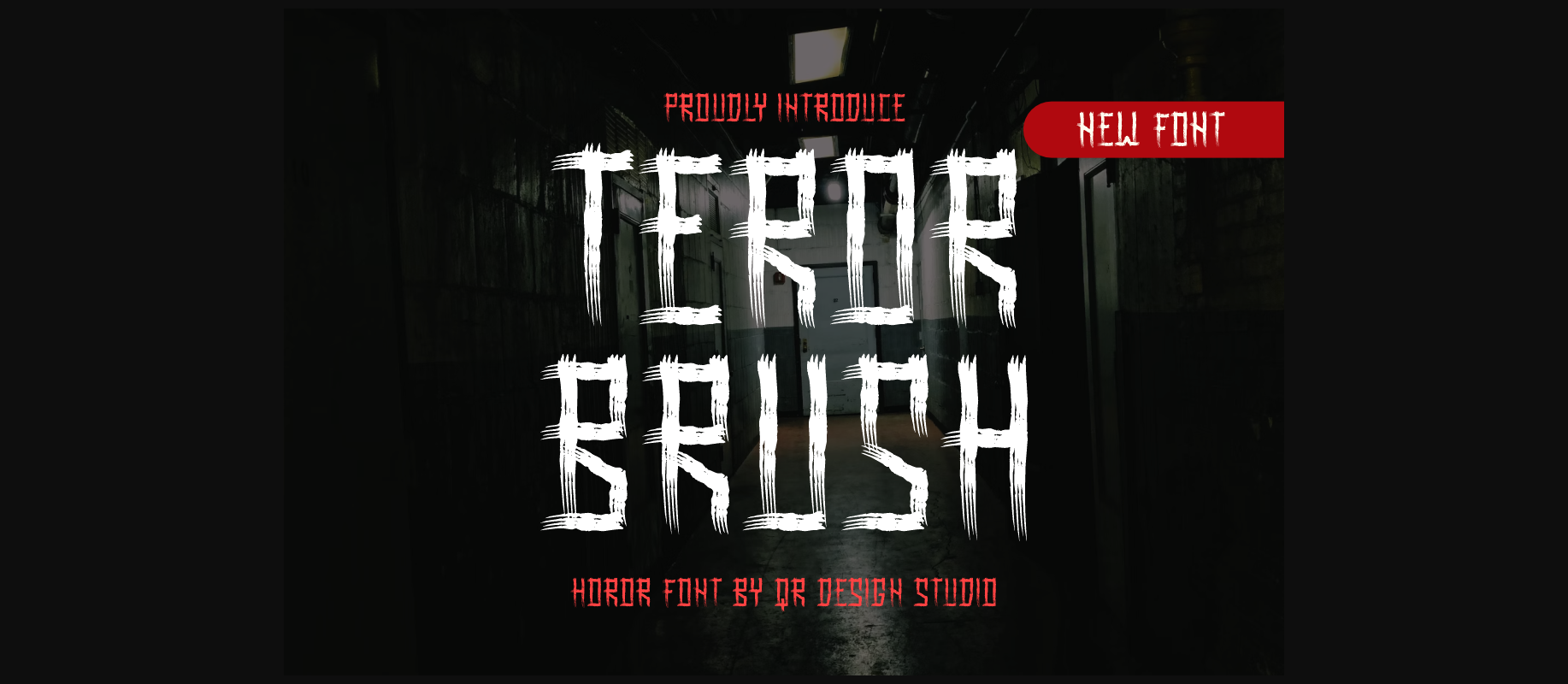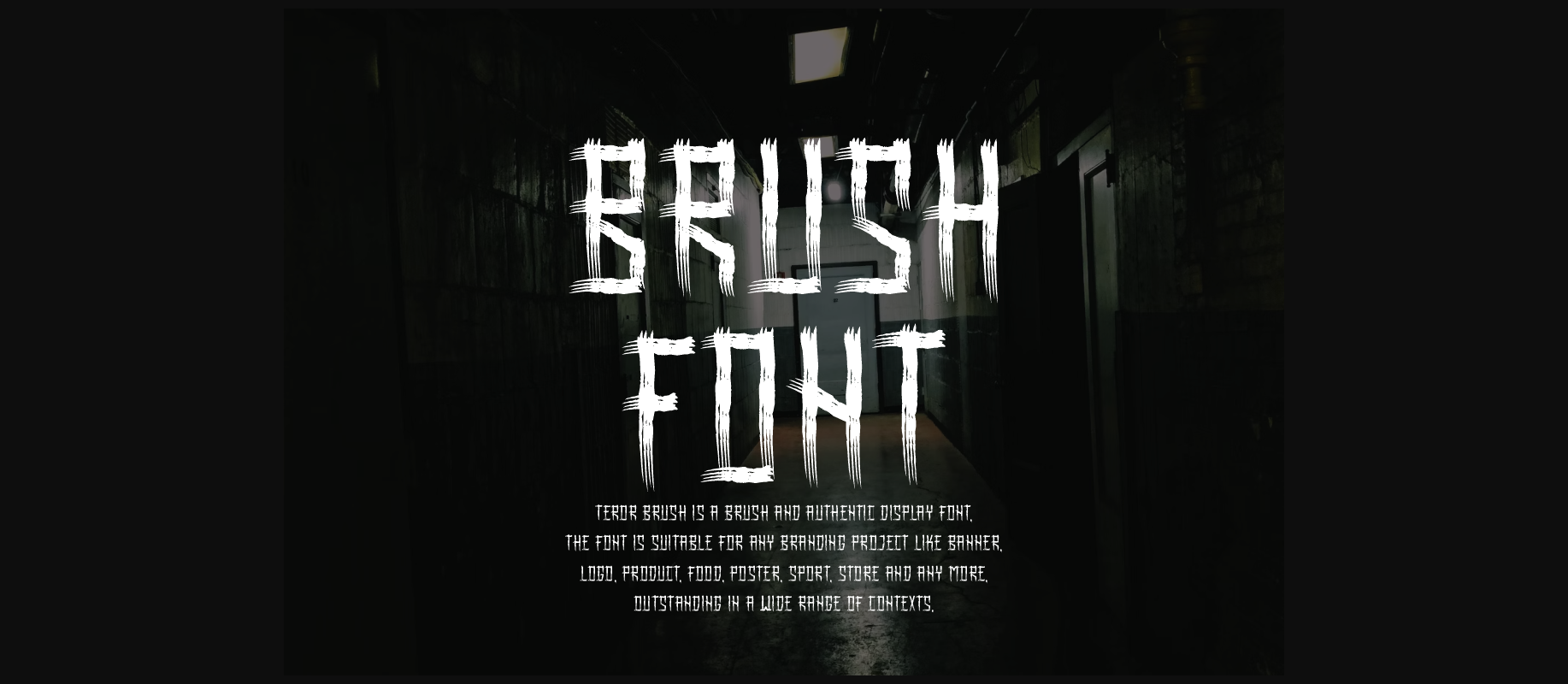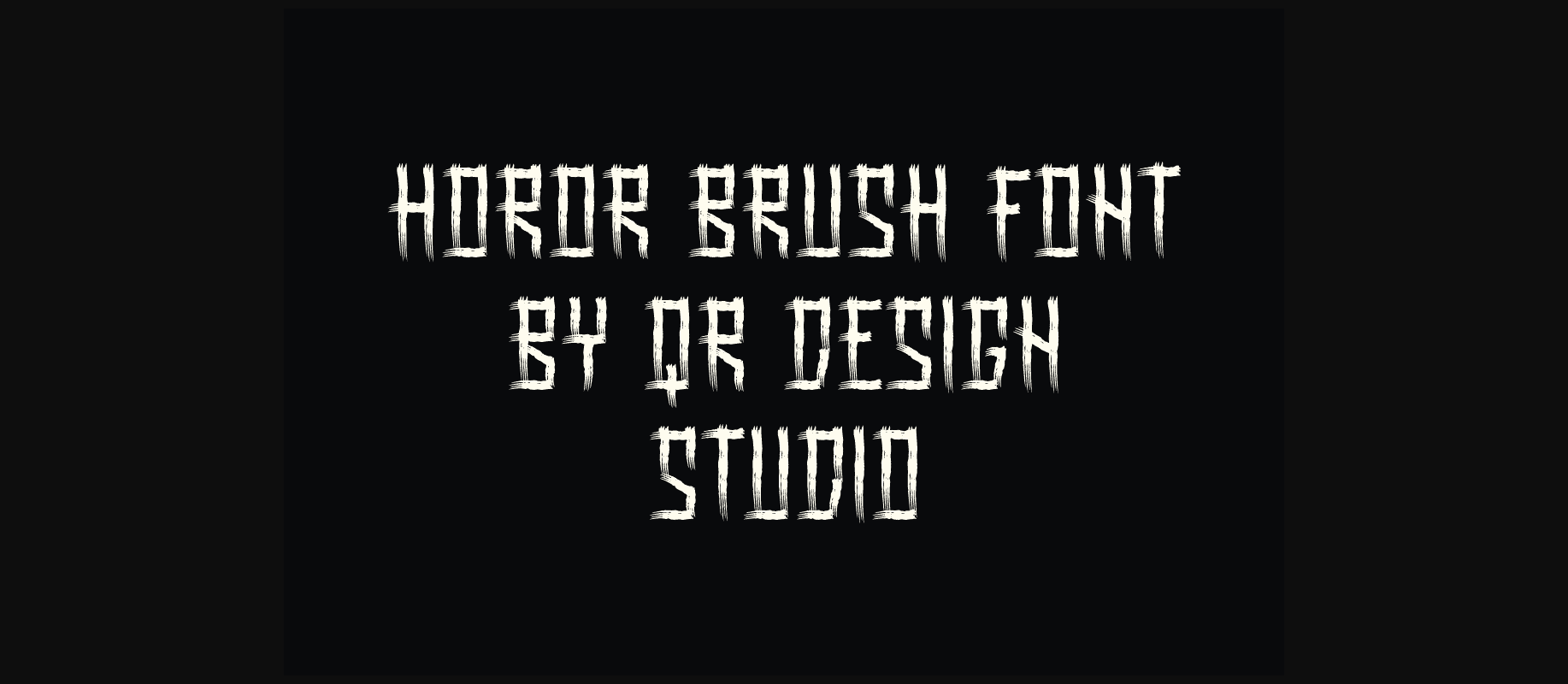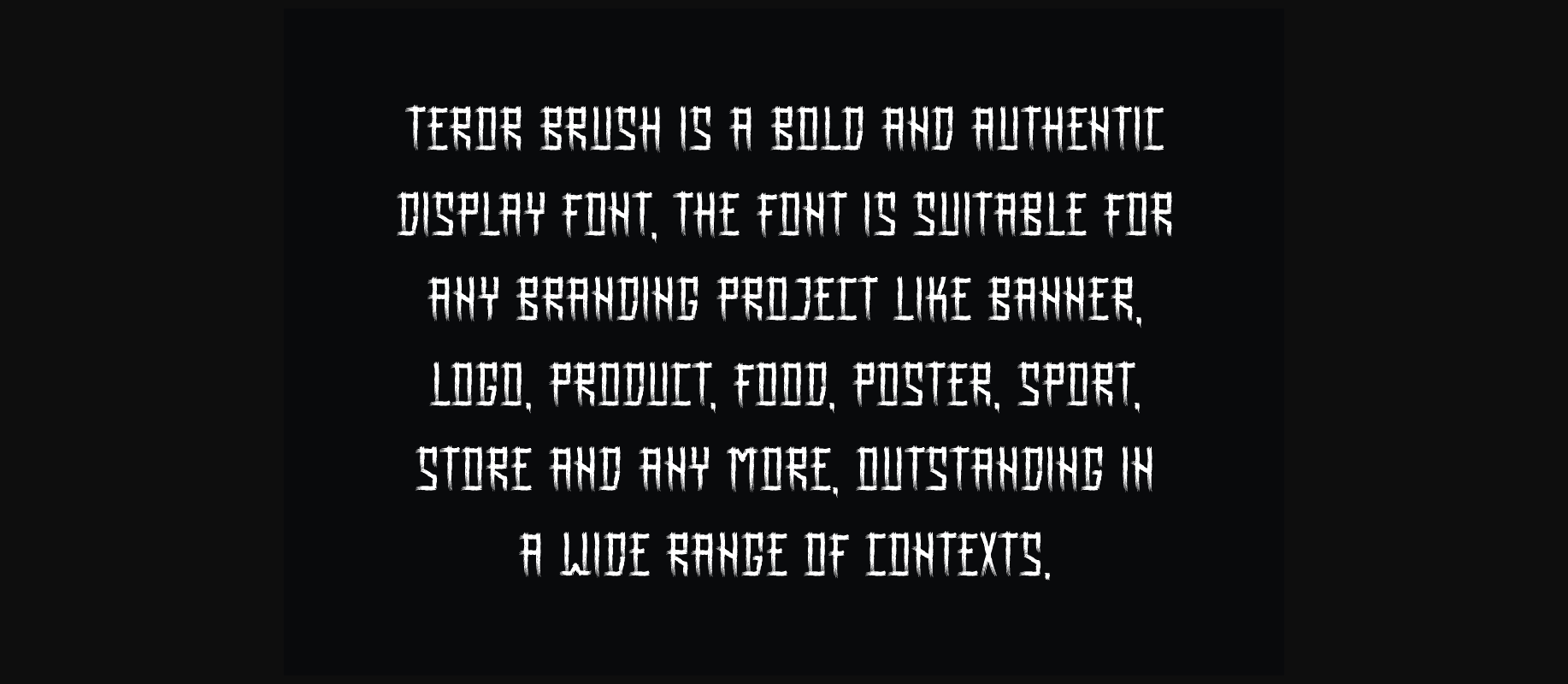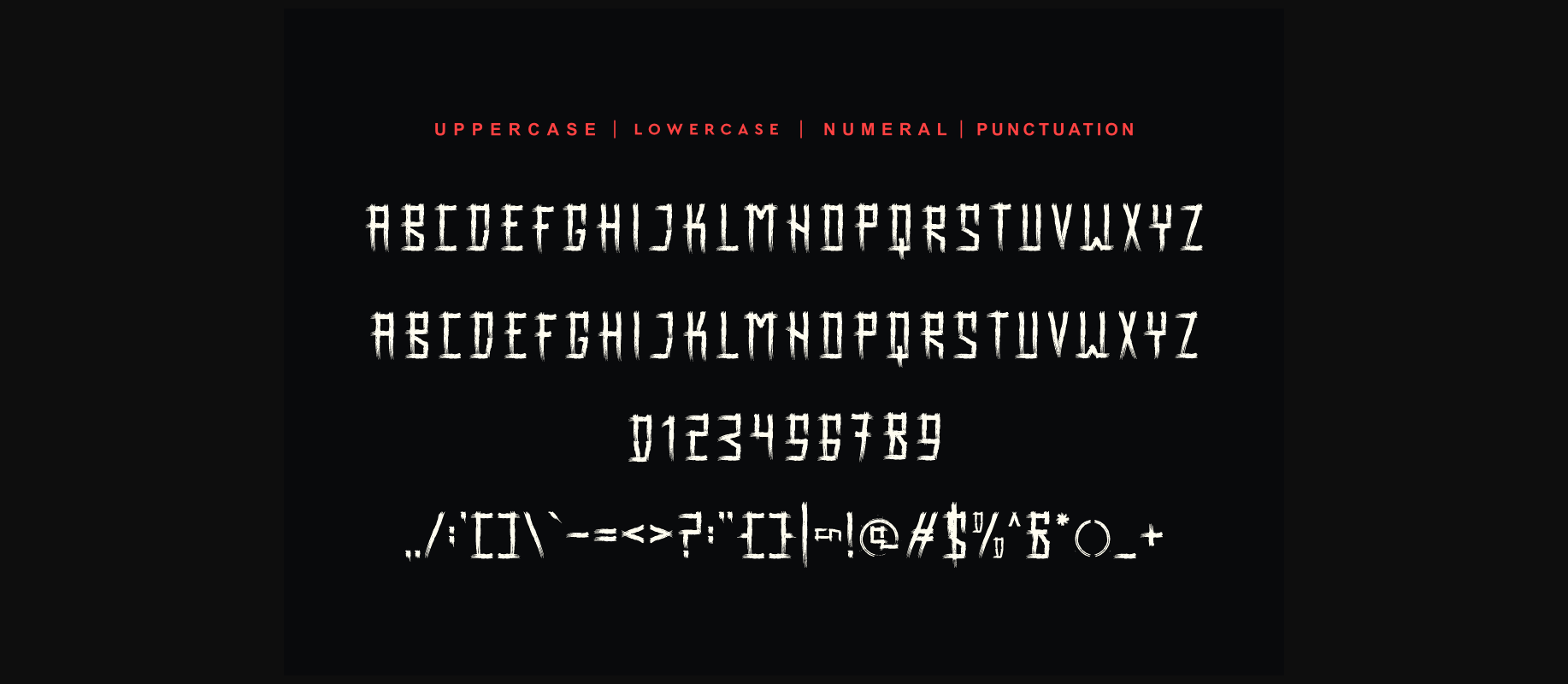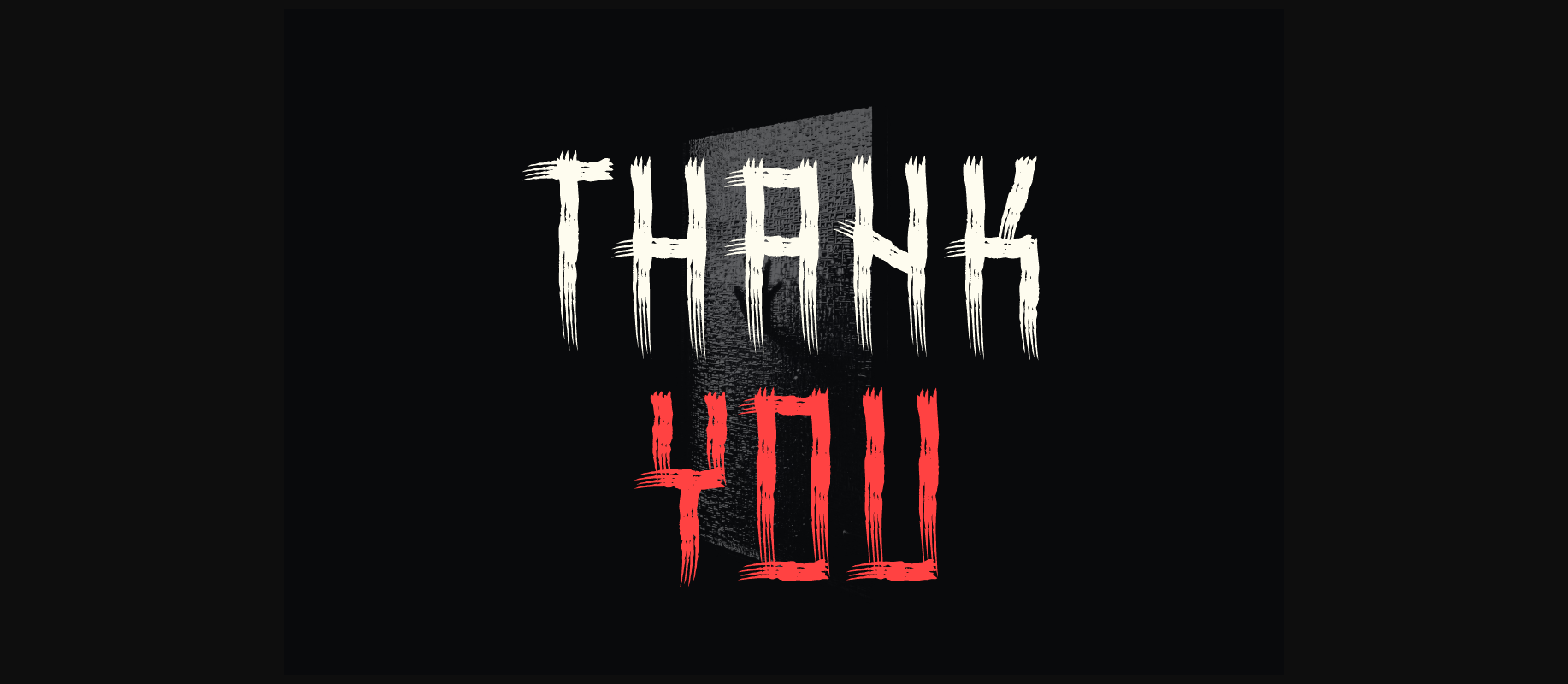
HomeDecorative FontsTeror Brush Font Decorative Fonts Teror Brush Font FacebookXPinterestWhatsApp 1 of 8 ... Teror Brush Font Poster 2... Teror Brush Font Poster 3... Teror Brush Font Poster 4... Teror Brush Font Poster 5... Teror Brush Font Poster 6... Teror Brush Font Poster 7... Teror Brush Font Poster 8... About Teror Brush Font Teror Brush is an incredibly cool and unique display font. It has a modern yet whimsical style and it will undoubtedly immerse your designs into a magical world. DOWNLOAD NOW People also explored Malliget Font Sarisha Font Hope Font Mini Rocks Font Brellanita Font Grandix Font Simple Signature Font Marlina Monogram Font Heft 331 0 TagsTeror Brush Font Previous articleCyber Glitcher FontNext articleLove Couple Font LEAVE A REPLY Cancel reply Comment: Please enter your comment! Name:* Please enter your name here Email:* You have entered an incorrect email address! Please enter your email address here Website: Save my name, email, and website in this browser for the next time I comment. Personal Use Free Amrina Personal Use Free Read more about this font Peristiwa Font Personal Use Free Read more about this font Color Personal Use Free Read more about this font Maharany Personal Use Free Read more about this font BLOG How to Cut Any Font on Cricut: Convert a Font to SVG (Free) Turn any font into a clean SVG so it cuts crisp on Cricut - a quick 3-step workflow using a free font-to-SVG tool. Using Fonts in Digital Marketing: Tips to Strengthen Your Brand Identity Free Fonts Risk: Why Free Fonts Can Be Dangerous for Designers Free vs Paid Fonts: Why Investing in Premium Fonts Is Worth It